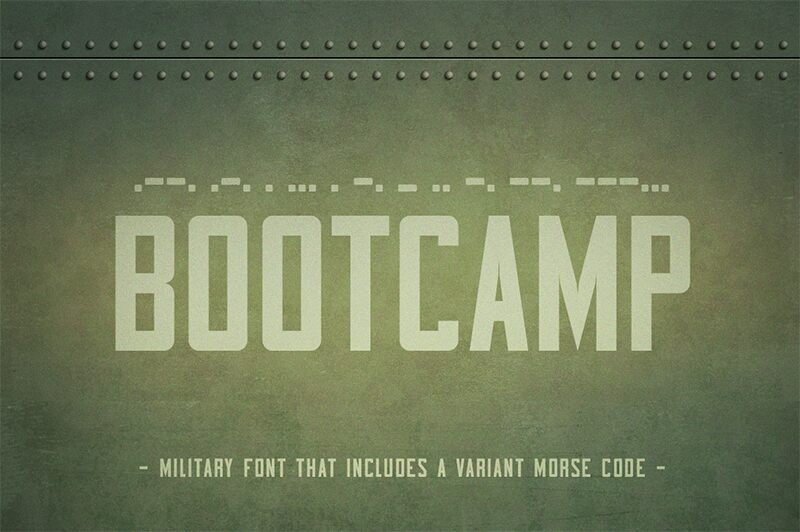
Bootcamp
Attention soldiers! Meet Bootcamp, the new military sans serif typeface designed by Juan Miguel Castillo. This font is ideal for any project that requires a strong and authoritative look, from posters to flyers, and even branding materials. With its semi-bold weight and extra-condensed width, Bootcamp commands attention and exudes confidence. Whether you're creating designs for a boot camp training program or a tactical gear store, this font will give your message the impact it deserves. So get ready to march forward with Bootcamp as your trusty ally in design!
Juan Miguel Castillo